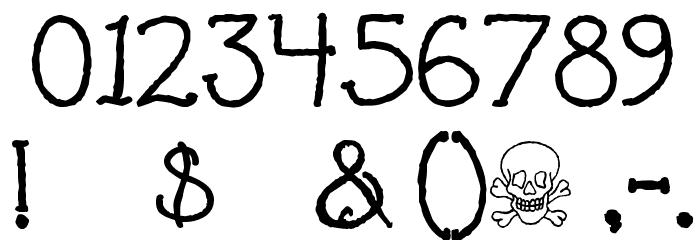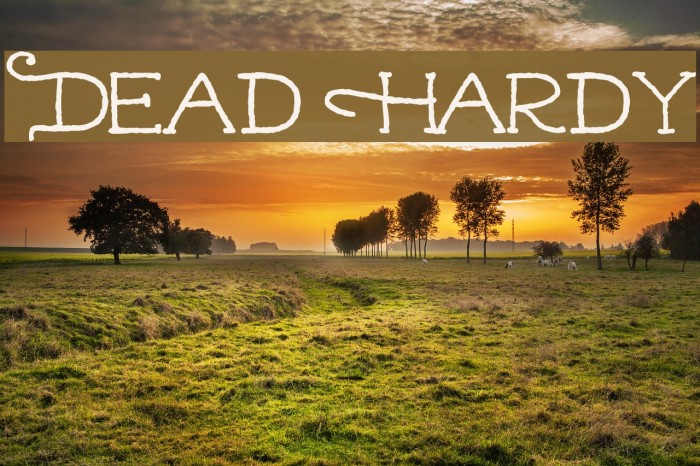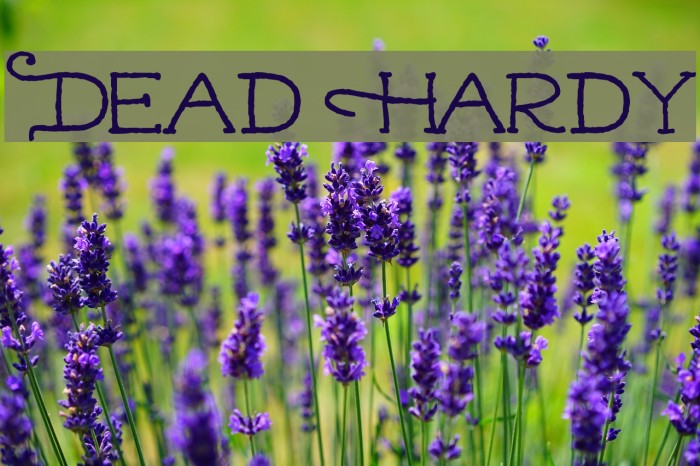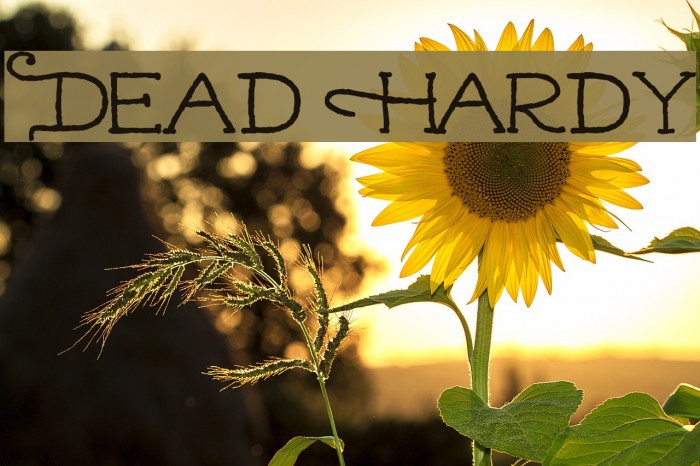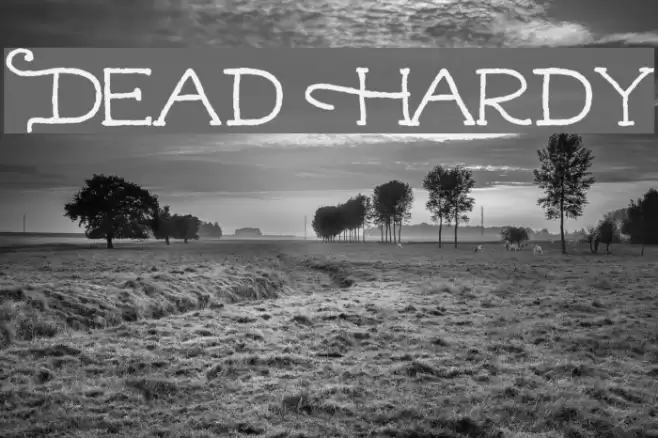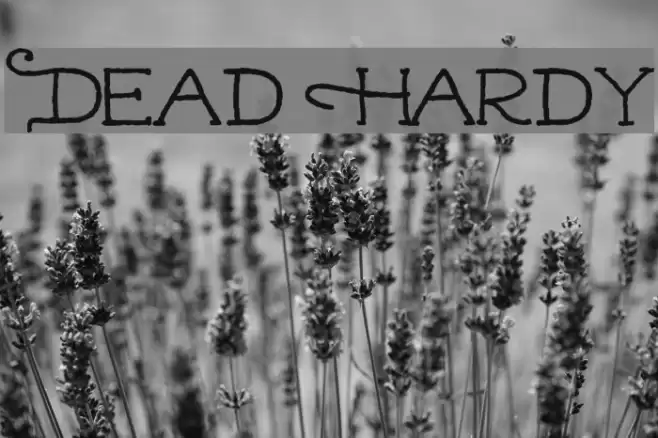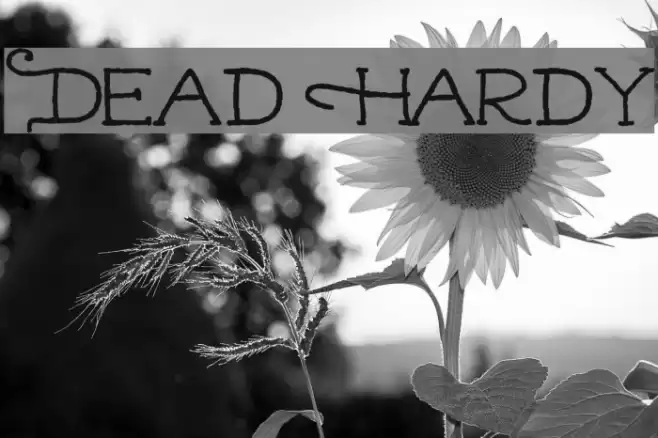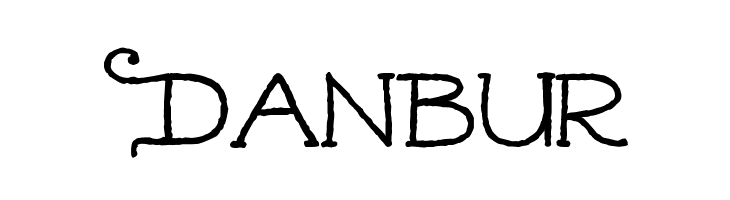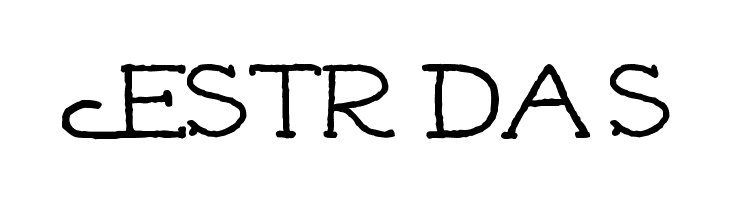
Dead Hardy Font
This font exhibits a playful and slightly eerie design, characterized by its decorative and whimsical elements. The uppercase letters feature unique embellishments, such as curls and loops, giving them a quirky and distinctive appearance. The lowercase letters maintain a similar style, ensuring consistency throughout the typeface. Numbers are bold and clear, with a slightly irregular shape that adds to the font's charm. Special characters, including a skull symbol, enhance the font's playful and spooky theme. Overall, this font is ideal for projects that require a fun, yet slightly macabre touch.
A playful and decorative font with quirky, spooky elements.
- Proposed Projects: Ideal for Halloween-themed designs, children's books, party invitations, and playful branding.
- Use Case: Headlines, Logos, Themed Events